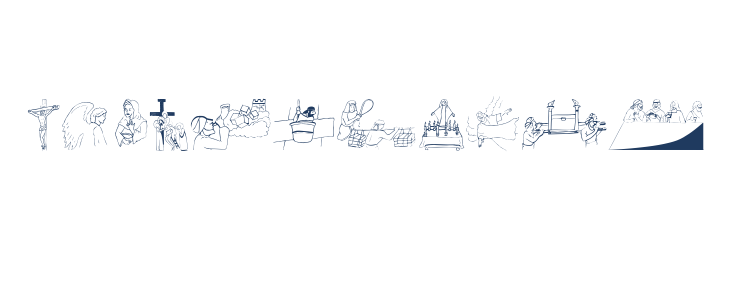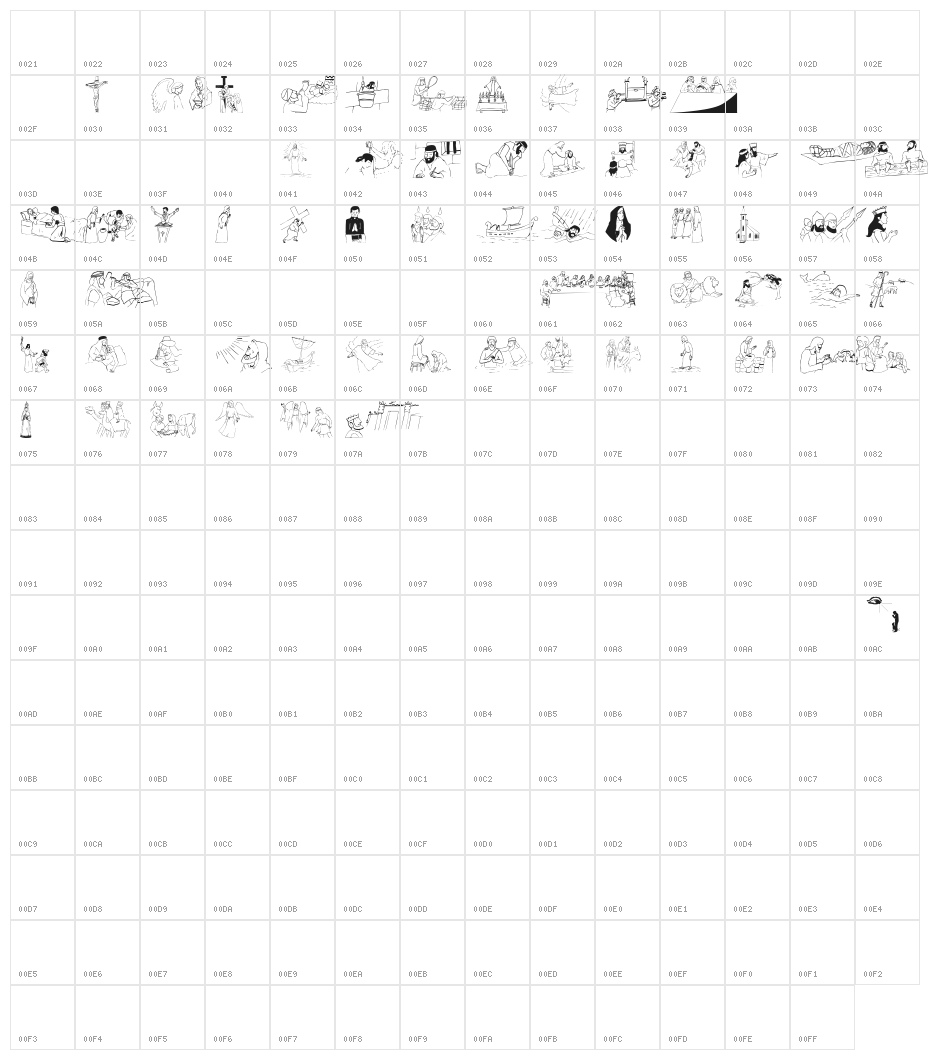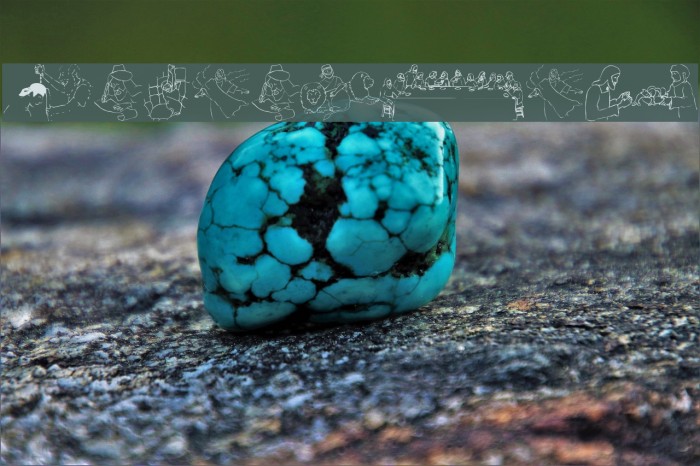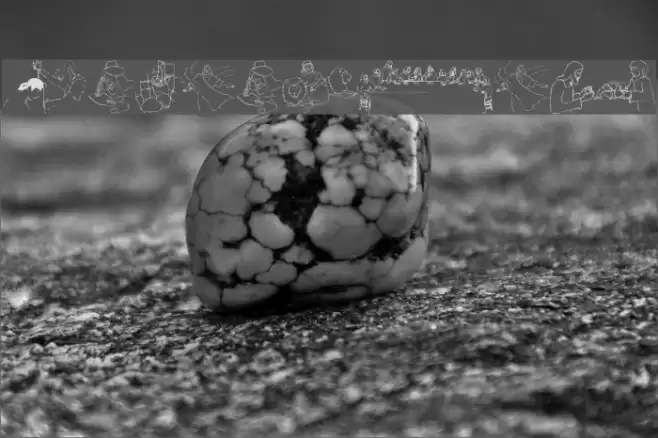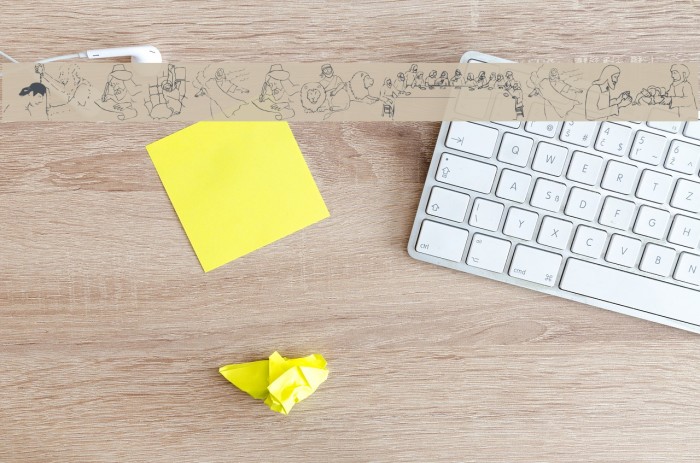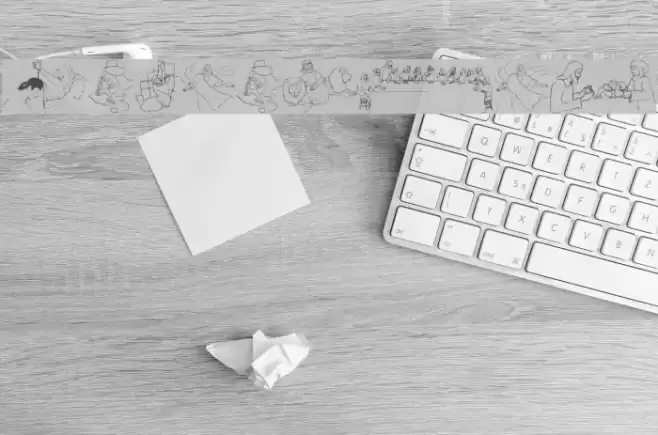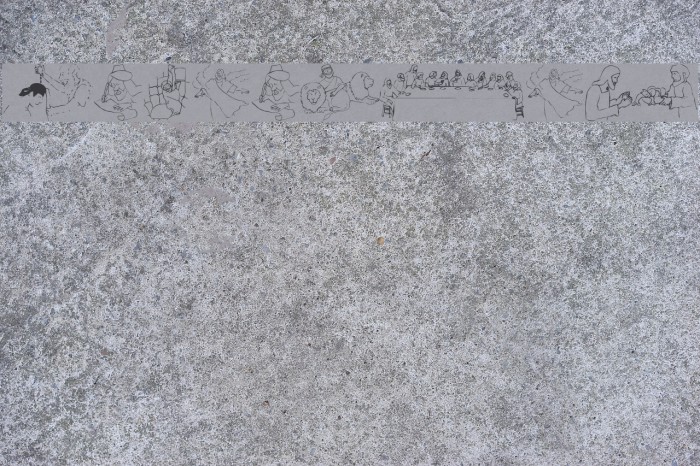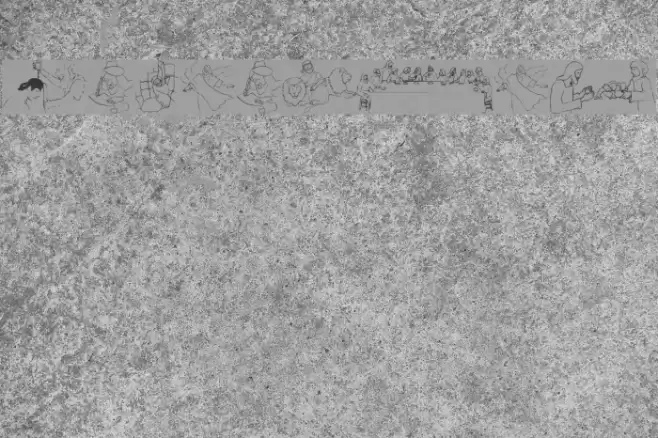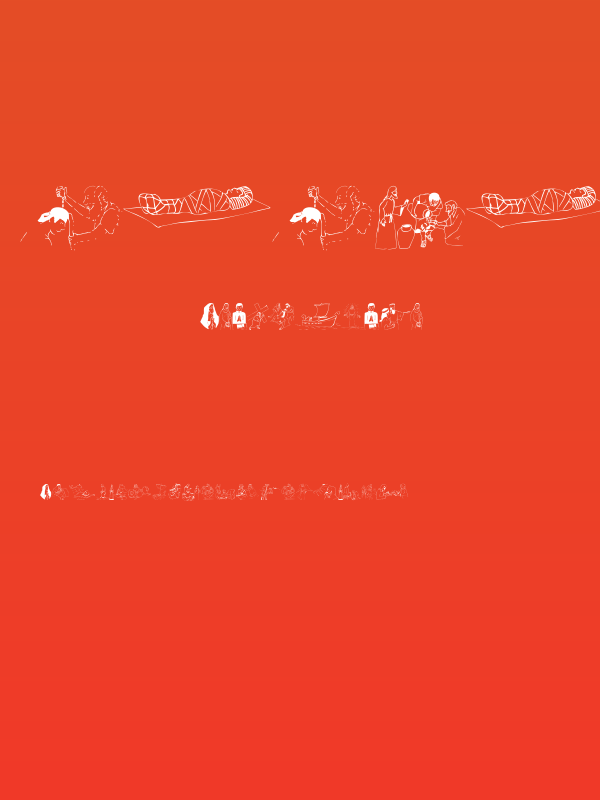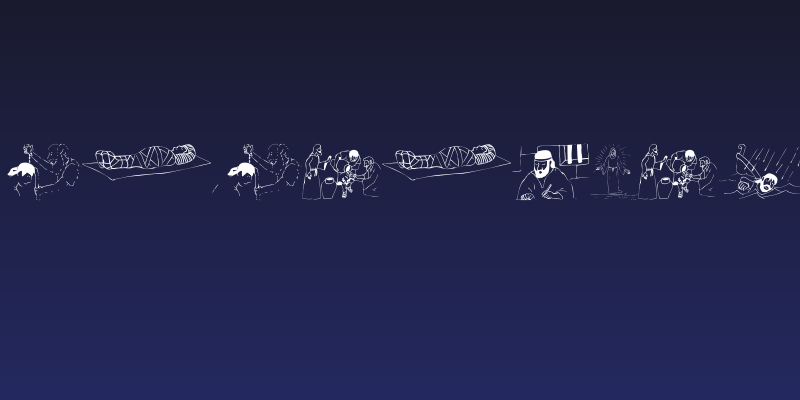
Biblicals Font
Biblicals Description
A decorative display typeface composed of minimalist line-art illustrations depicting various biblical scenes and characters, with each glyph representing a unique narrative moment rather than a traditional letterform.
| Overall Style | Decorative, Illustrative, Thematic |
| Use Case | Display, Thematic headings, Visual storytelling |
| Proposed Projects | Religious educational materials, church bulletins, themed posters, Sunday school resources, illustrated storybooks. |